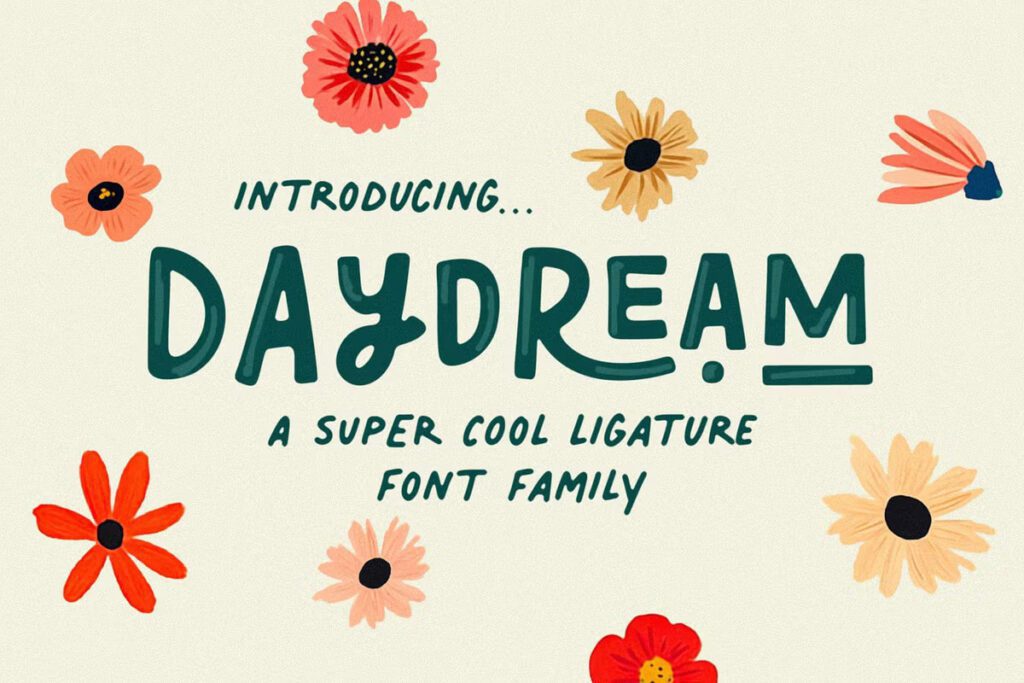
Daydream: A Cool and Versatile Ligature Font Family
Introducing Daydream, a stylish ligature font family created by Bruised Goods in California, USA. With its modern and edgy design, Daydream is perfect for adding a unique touch to your creative projects. This font family comes in four distinct styles—Light, Regular, Bold, and Outline—making it highly versatile for various uses like ads, logos, packaging, and more.
Why Choose Daydream?
Daydream is a display font designed to make a statement. With its sleek ligatures and modern appeal, it’s best suited for headers, logos, and other prominent text elements. Whether you’re creating a bold album cover or elegant invitations, Daydream brings style and sophistication to the forefront of your design.
Features of Daydream:
Four Styles: Choose between Light, Regular, Bold, and Outline to suit your design needs.
Extensive Glyphs: With 340 glyphs per style, including uppercase letters, numbers, and punctuation, Daydream offers flexibility and creativity in your typography.
Perfect For:
Logos & Branding: Create a modern and memorable logo with Daydream’s striking ligatures and bold design.
Packaging & Merchandise: Elevate your product packaging or apparel designs with Daydream’s versatile styles.
Invitations & Flyers: Make a lasting impression with unique invitations, cards, or flyers that stand out with Daydream’s contemporary look.
Bring modern, California-inspired style to your next project with Daydream!